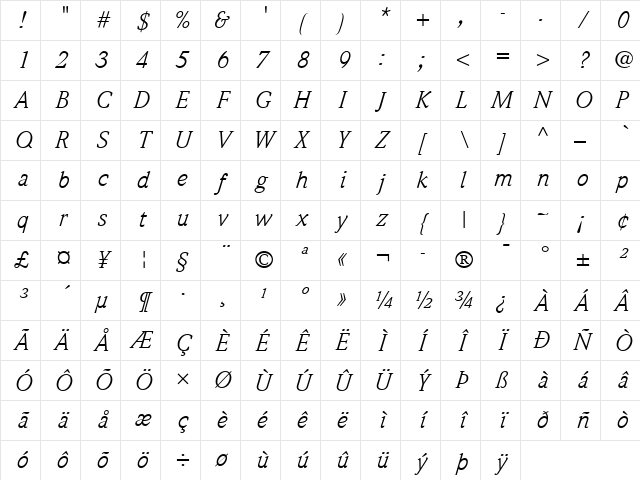
Complete Weidemann LT Book Italic glyph index. Displaying only characters natively supported by Weidemann LT Book Italic font.
Weidemann LT Book is a composed and adaptable typeface that performs quietly and consistently across a wide range of design contexts. The slanted form adds forward momentum and visual energy. Its slender proportions lend an understated elegance to any composition.